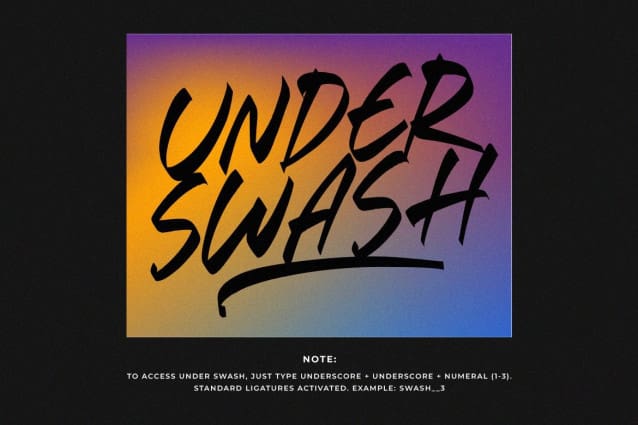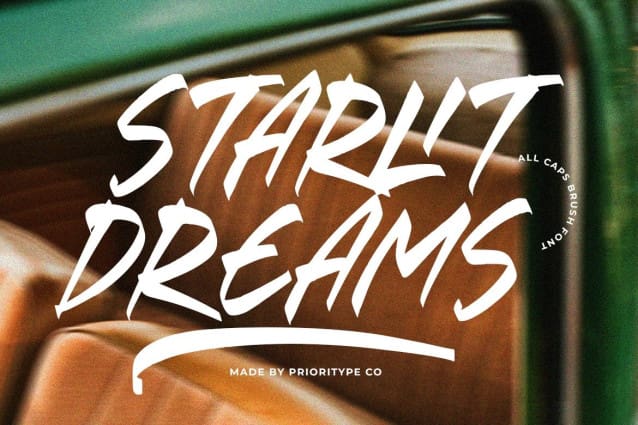
Starlit Dreams Font
Starlit Dreams Font – A sleek brush-style font designed for bold branding, striking logos, and captivating posters. With dynamic slanted strokes and stunning under swashes, it’s your key to standout designs that command attention.